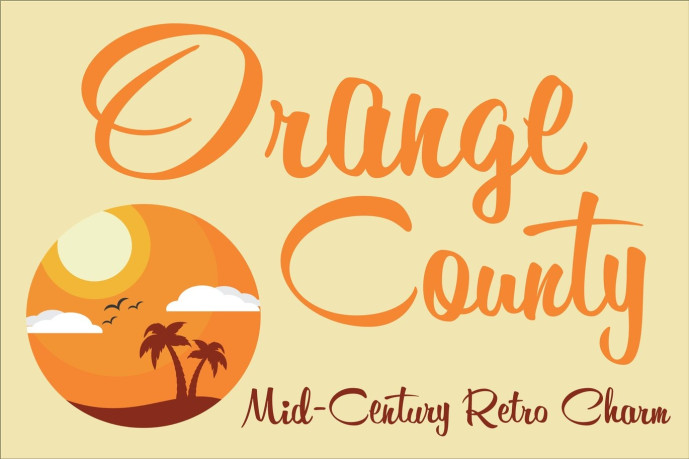
Orange County Font
Orange County is a typeface done in the style of classic hand-painted scripts from the 1950s and 1960s. The modulated baseline and x-height lend the typeface a bouncy flair that makes it fun yet classy. The font contains two versions of each letter allowing the designer to mix and match for a more organic hand drawn feeling.
It is named for the famous county in southern California where the designer lives. The font comes in OpenType format and the download contains both .otf and .ttf versions as well as webfont formats. It is compatible on both Mac and Windows.and contains basic OpenType features as well as support for Latin-based and most Eastern European languages.